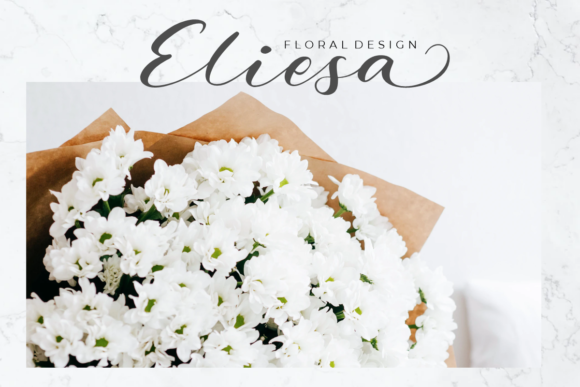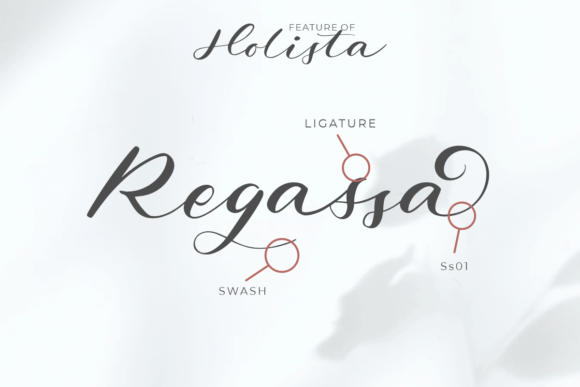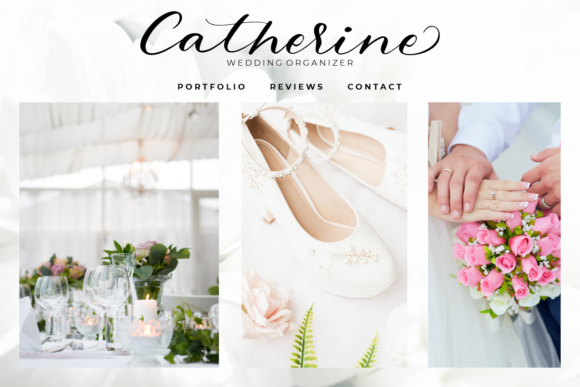
Introduction to Holista Calligraphy Font
Have you ever found yourself lost in the process of creating the perfect design, pouring over fonts and colors until the clock strikes midnight? This is where the magic of the right font comes in – and for designers, it’s a game-changer. Imagine adding a touch of elegance to your next creative project with a single font.
That’s where the Holista Calligraphy Font comes in – a beautiful, versatile script font that’s perfect for adding a romantic feel to your work. Whether you’re creating a stunning headline or a heartfelt greeting card, this font is sure to elevate your design to the next level.
As a valuable resource for designers, the Holista Calligraphy Font is a must-have in any design arsenal. With its wide range of applications and PUA encoded features, you’ll have access to a world of creative possibilities – and the best part? It’s available for free download, complete with a transparent background, making it a high-quality design resource that’s easy to use.
Key Features of Holista Calligraphy Font
- Unique Handwritten Style: The Holista Calligraphy Font features a beautiful, elegant handwriting style perfect for creative projects that require a touch of personality.
- High-Quality Design: This font is designed with high-quality in mind, making it ideal for use in various design projects, from invitations to posters and more.
- Transparent Background: The font includes a transparent background, allowing for easy customization and flexibility when designing with it.
- Resolution: The font is designed at 300 DPI, ensuring crisp and clear text even when used in high-resolution designs.
- Perfect for Creative Projects: The Holista Calligraphy Font is an excellent choice for any creative project that requires a beautiful, elegant handwriting style, making it a valuable addition to any designer’s toolkit.
Honest Review: Holista Calligraphy Font
As a designer, I’m always on the lookout for high-quality design resources to elevate my creative projects. Recently, I came across the Holista Calligraphy Font, and I must say it’s a game-changer.
- ✨ Elegant and sophisticated design: The Holista Calligraphy Font boasts a beautiful, flowing script that’s perfect for adding a touch of sophistication to any design.
- ⚠️ Limited language support: Unfortunately, the font only supports Latin characters, which may be a limitation for designers working with non-Latin scripts.
Overall, I’m really impressed with the Holista Calligraphy Font. While it may have some limitations, its elegant design and high-quality font files make it a valuable addition to any designer’s toolkit. Whether you’re working on a creative project or just need a beautiful font for a design, the Holista Calligraphy Font is definitely worth checking out.